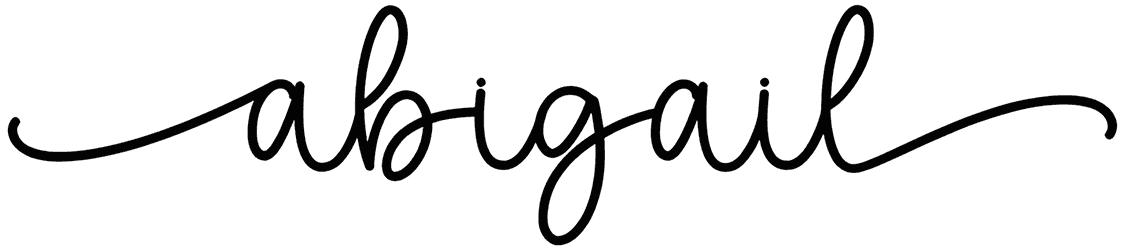
Abigail Font
Abigail font is the perfect way to add a human element to your designs, whether you’re creating a logo, a website, or a book cover jet.
With its natural and organic feel, this feminine font creates a warm and familiar atmosphere that can help your audience connect with your brand and message on a deeper level. So if you want to infuse your designs with personality and charm, try this script font today and start using it immediately.